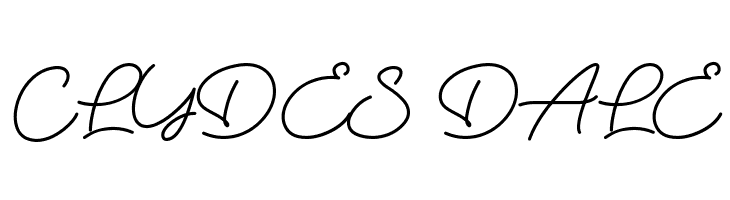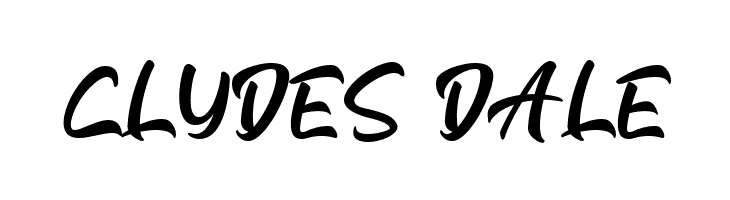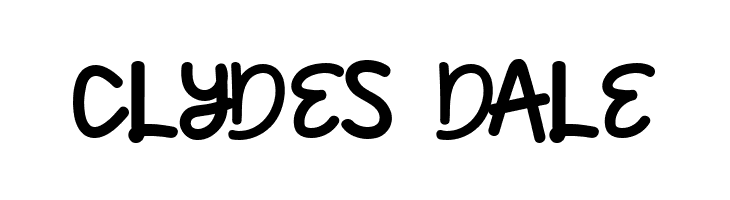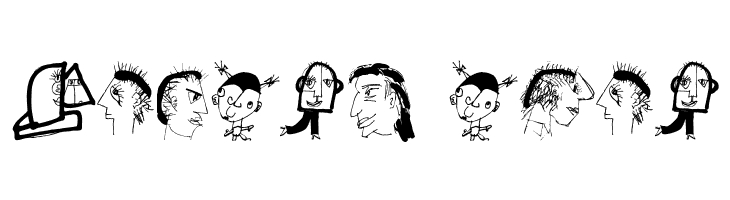
Hand-drawn, illustrative font featuring quirky faces and figures.
A bold, flowing script font with elegant, dynamic curves.
A playful, casual handwritten font with smooth, rounded edges.
A flowing, cursive font with elegant, connected letters and a personal touch.